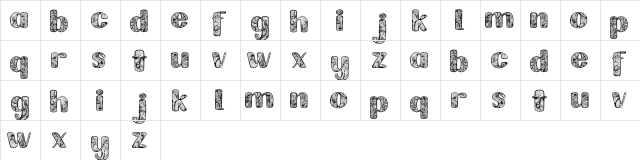
Labrint Demo
Design Context for Labrint Typeface
Labrint is a composed and adaptable typeface that performs quietly and consistently across a wide range of design contexts.